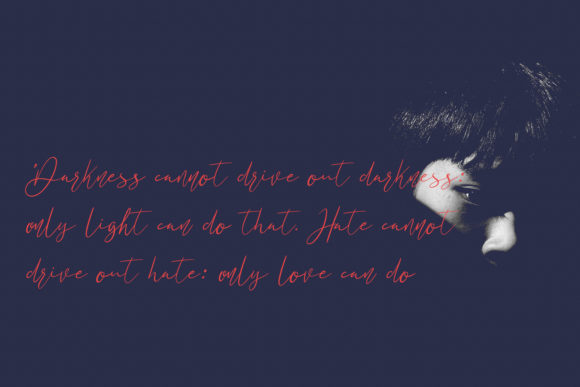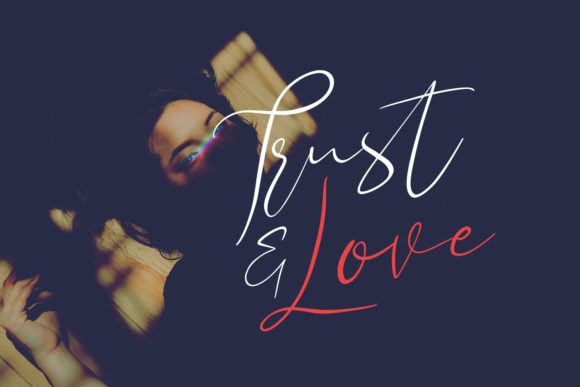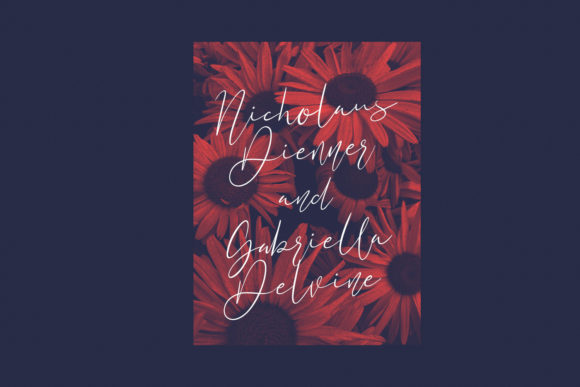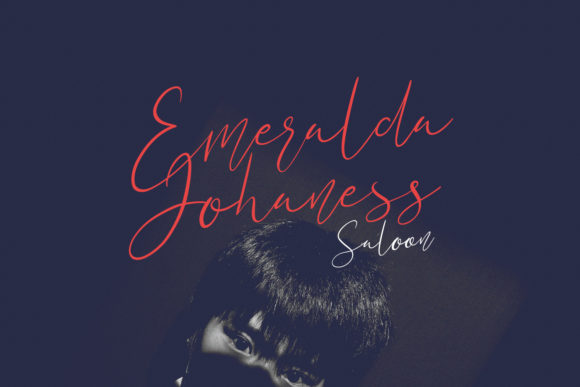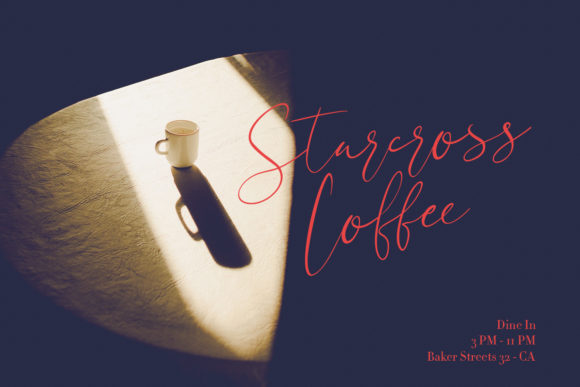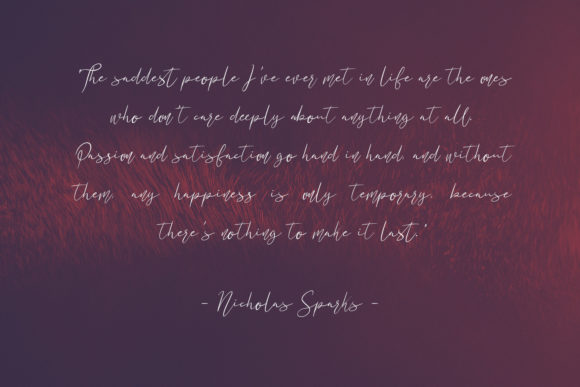
Introduction to Nickjones Font
Have you ever stared at a blank canvas, searching for the perfect font to bring your creative project to life? The blank page stares back, taunting you with its emptiness. But then, it happens – a spark of inspiration strikes, and you envision a ravishing script font dancing across the page. Welcome to the world of Nickjones Font, where elegance and sophistication reign supreme.
As a designer, you know the importance of a high-quality font in elevating your design project from ordinary to extraordinary. Nickjones Font is more than just a font – it’s a design resource that adds a touch of luxury to any project. With its light and dancing characters, it’s the perfect choice for those seeking a refreshing look that exudes sophistication and refinement.
Key Features of Nickjones Font
- Unique, bold design with a transparent background, perfect for graphic design and digital art
- Features a wide range of characters, including uppercase and lowercase letters, numbers, and symbols
- Designed for versatility, suitable for various design applications, from logos to typography
Honest Review: Nickjones Font
I recently stumbled upon the Nickjones Font, and I must say, it’s a hidden gem for designers. As a creative project, this font offers a unique blend of styles that can elevate any design.
- ✨ High-quality glyphs: The Nickjones Font boasts crisp, well-designed glyphs that can add a touch of sophistication to your designs.
While the Nickjones Font is an excellent addition to any design arsenal, there are some limitations to consider.
- ⚠️ Limited font styles: The font family is relatively small, which may not be ideal for projects that require a wide range of font styles.
- ⚠️ Not ideal for body text: Due to its unique design, the Nickjones Font may not be the best choice for body text, where readability is crucial.
Overall, I’m impressed with the Nickjones Font’s potential to add a creative twist to designs. While it may have its limitations, it’s definitely worth considering for design projects that require a touch of personality.